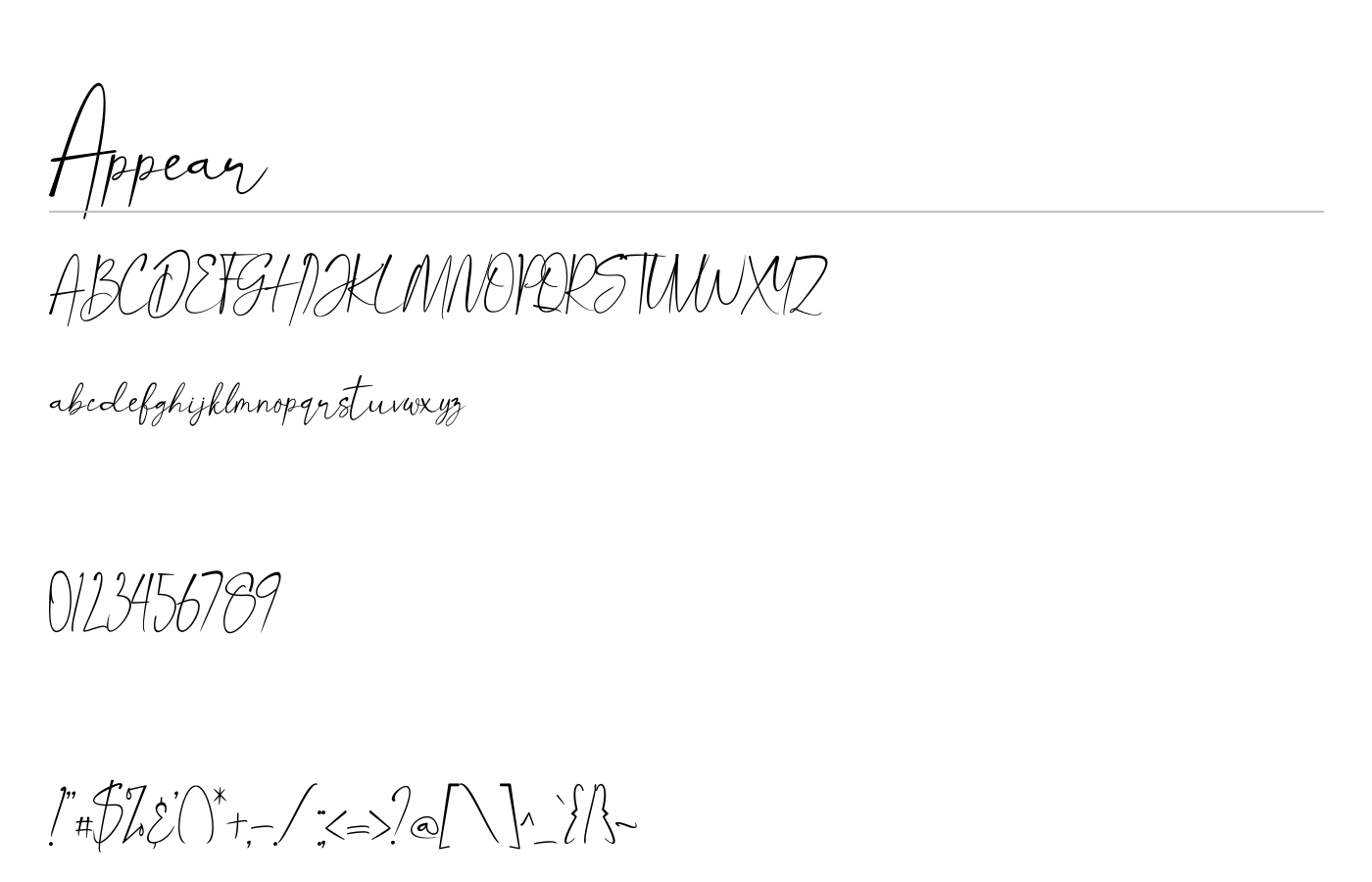
Appear is a slender, elegant script font with a hand-drawn, airy feel that combines a casual yet refined style. Its tall, flowing letterforms and fine lines make it perfect for sophisticated branding, invitations, and creative projects that require a personal, stylish touch. This font works well in designs that want to convey warmth, modernity, and a light, graceful personality.
Appear Font
About Appear Font
| Font family | Appear Font |
| Designer | Arief Tri Sulistiyono |
| Trademark | Supersemar Letter |